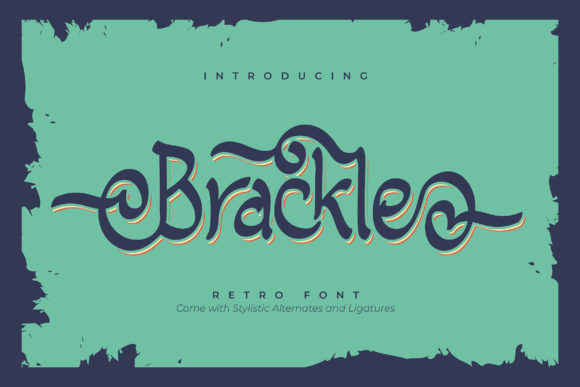
Brackle: A Versatile Display Font for Creative Expression
In the world of typography, finding a font that balances elegance with versatility can be challenging. Enter Brackle, an incredibly distinct and interesting display font that has quickly gained popularity among designers and creatives. With its unique style and practical features, Brackle is more than just a visual choice—it’s a tool that empowers users to create stunning designs across a variety of platforms.
Brackle is a PUA (Private Use Area) encoded font, which means it offers full access to all glyphs and swashes. This feature is especially valuable for designers who need to customize their typography for specific projects. Whether you're crafting wedding invitations, designing stationary art, or creating eye-catching social media posts, Brackle provides the flexibility and depth needed to bring your ideas to life.
Why Brackle Stands Out
One of the most appealing aspects of Brackle is its ability to adapt to different design contexts. Its bold and stylized appearance makes it ideal for headlines and attention-grabbing text, while its subtle variations allow for creative expression in more intricate layouts. The font’s versatility ensures that it can be used in both digital and print formats without losing its character.
For those who are familiar with the challenges of working with display fonts, Brackle addresses common pain points. Many display fonts lack proper support for special characters or alternate glyphs, which can limit their usefulness in professional settings. However, because Brackle is PUA encoded, users have complete control over every character, making it easier to incorporate custom elements into their designs.
Practical Applications of Brackle
The beauty of Brackle lies in its wide range of applications. Let’s explore some of the ways this font can be used effectively:
- Wedding Invitations: The elegant yet bold nature of Brackle makes it perfect for creating memorable wedding invitations. It adds a touch of sophistication while maintaining readability.
- Stationary Art: For those who enjoy handcrafted stationery, Brackle can elevate the aesthetic of greeting cards, letterheads, and other paper-based designs.
- Social Media Posts: In the fast-paced world of online content, Brackle can help your posts stand out. Its distinctive style is well-suited for branding, logos, and promotional materials.
- Logo Design: The font’s strong visual identity makes it an excellent choice for logos and brand identities, particularly for businesses that want to convey confidence and creativity.
Each of these applications highlights how Brackle can meet the needs of different users. Whether you're a designer looking for inspiration or a business owner seeking to enhance your brand, the font offers a solution that aligns with your goals.
How to Use Brackle Effectively
To get the most out of Brackle, it’s important to understand how to use it in a way that complements your design. Here are a few tips to consider:
- Pair with Complementary Fonts: While Brackle is visually striking on its own, it works best when paired with a clean, readable serif or sans-serif font for body text.
- Use Swashes Strategically: The font includes a variety of swashes and decorative elements. These should be used sparingly to maintain balance and readability.
- Test Across Platforms: Ensure that Brackle looks consistent across different devices and platforms, especially if you’re using it for web-based content.
- Customize as Needed: Take advantage of the PUA encoding to add or modify glyphs according to your specific project requirements.
By following these guidelines, you can ensure that Brackle enhances your designs rather than overwhelming them.
Who Can Benefit from Using Brackle?
Brackle is not limited to a specific audience. It can be used by a wide range of individuals and professionals, including:
- Graphic Designers: Looking for a font that combines style with functionality for various design projects.
- Freelancers: Seeking a versatile tool to create branding materials, marketing assets, and more.
- Small Business Owners: Wanting to build a strong visual identity without compromising on quality.
- Students and Educators: Exploring typography for creative assignments or classroom projects.
Each of these groups may approach Brackle differently based on their specific needs. However, the font’s adaptability ensures that it can be tailored to fit any creative vision.
In conclusion, Brackle is more than just a display font—it’s a powerful tool for designers and creators who value both aesthetics and functionality. With its PUA encoding, unique style, and wide range of applications, it’s no wonder that Brackle continues to captivate users and inspire new design possibilities.